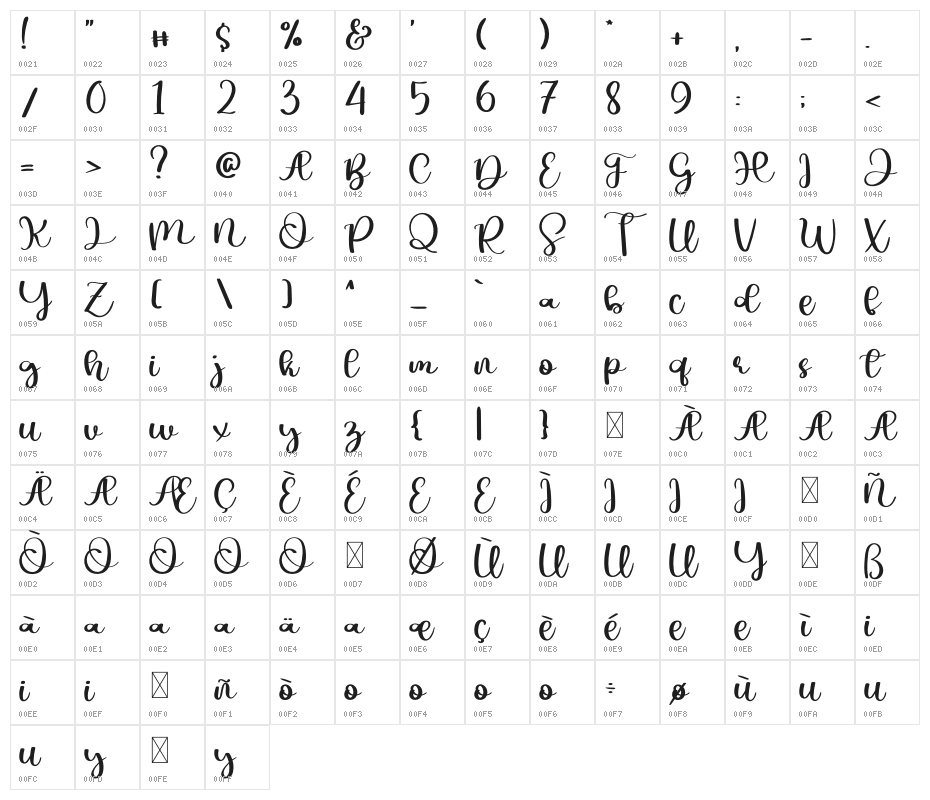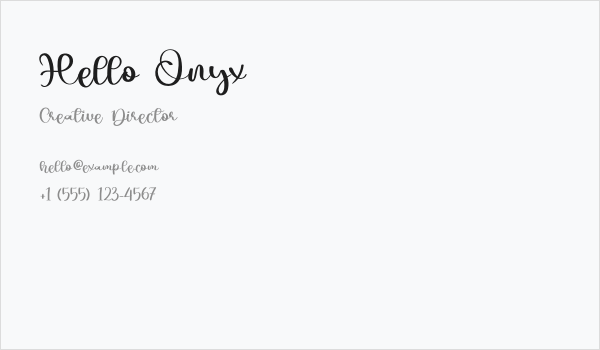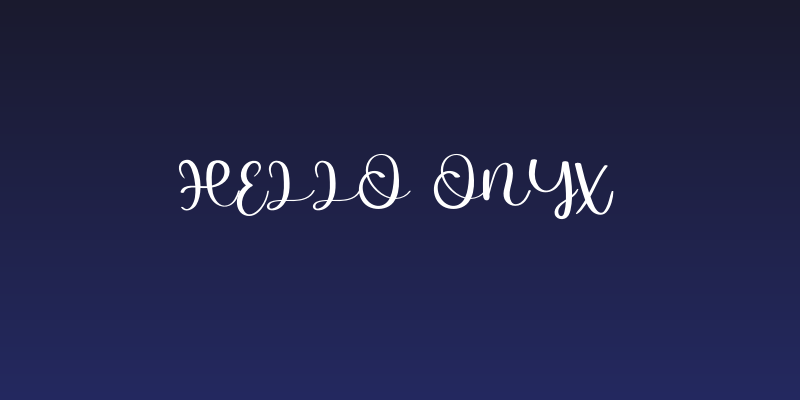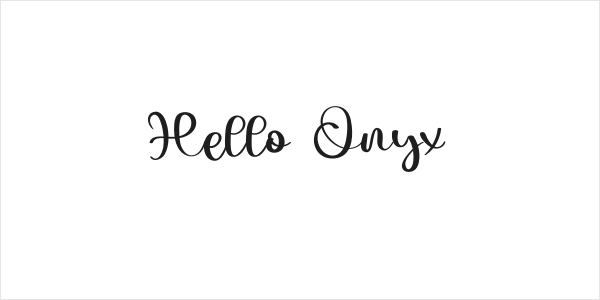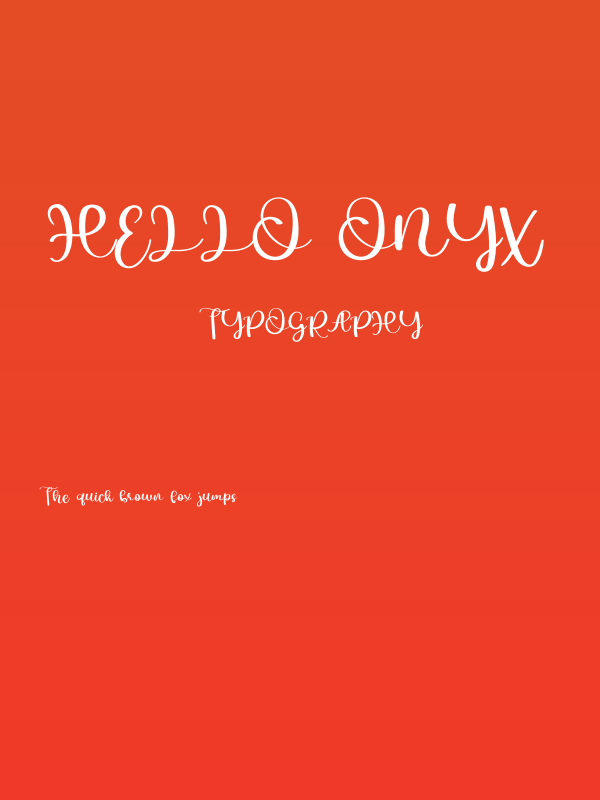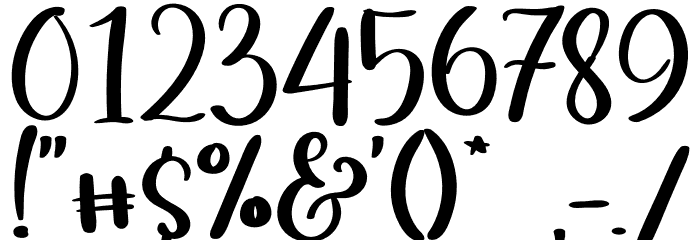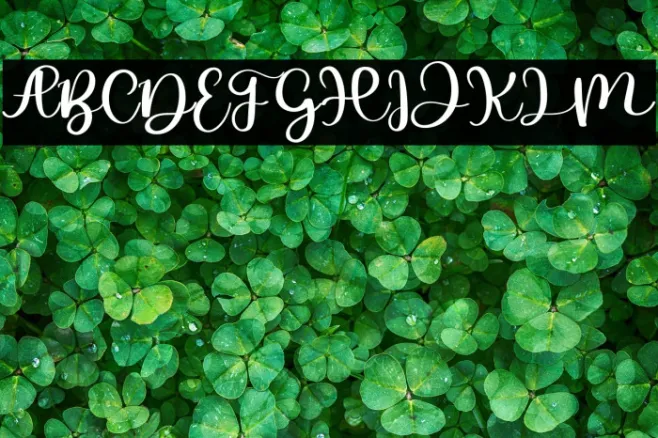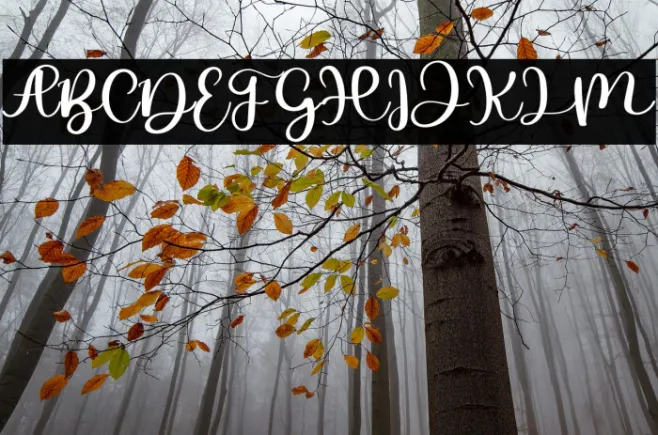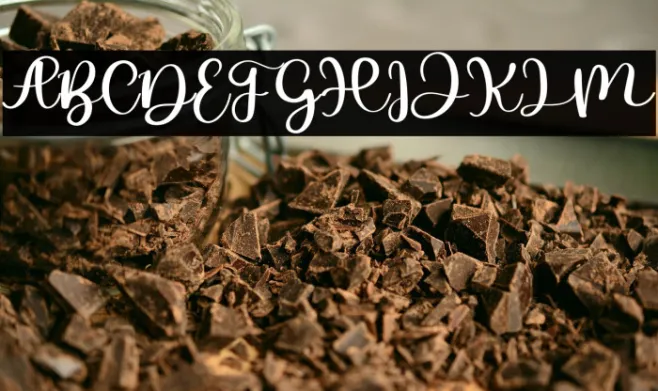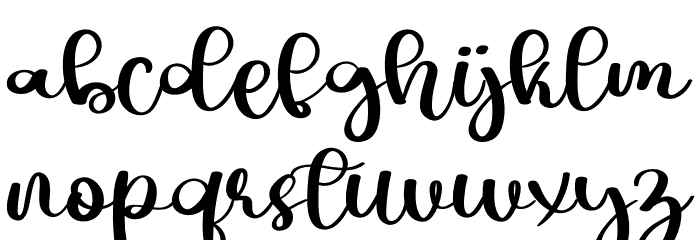
Hello Onyx Font
Hello Onyx Description
This font features a playful and whimsical script style with a hand-drawn appearance. The characters are interconnected, creating a flowing and dynamic look. The uppercase letters are bold and expressive, while the lowercase letters maintain a consistent, rounded form. Numbers and special characters are designed to match the lively style, making them suitable for creative projects. The overall design is characterized by its smooth curves and loops, giving it a friendly and approachable feel. This font is perfect for adding a personal touch to any design.